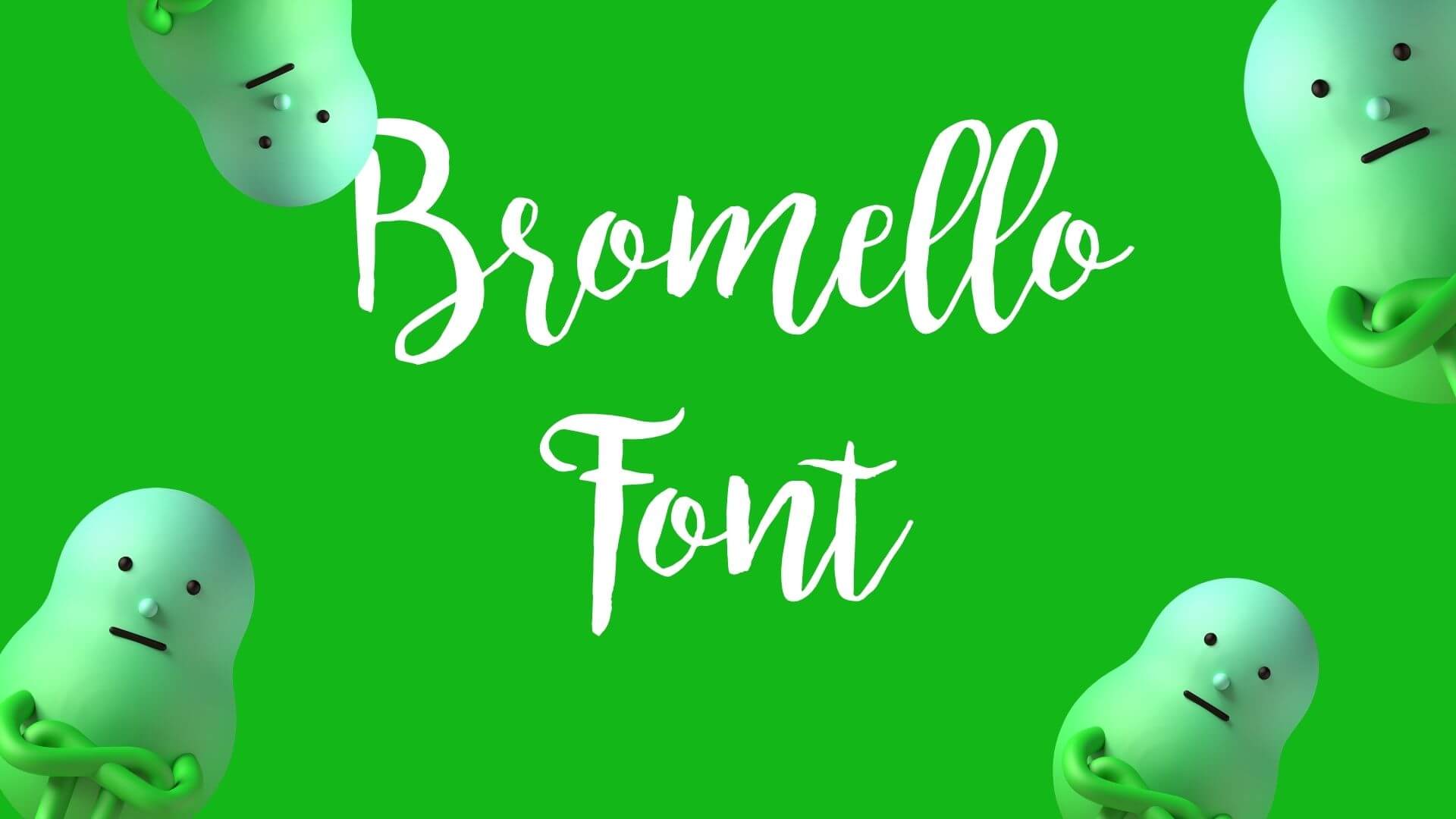
Bromello Font Family is a chic Script font family, was crafted using brush techniques. It’s particularly tailored for unique creations, such as card designs, making it a go-to choice for these types of projects.
It contains a complete set of characters including uppercase, lowercase, punctuations, numbers, and many other special characters and it is best goes with Brook Smith Font for any type of place.
Bromello Font